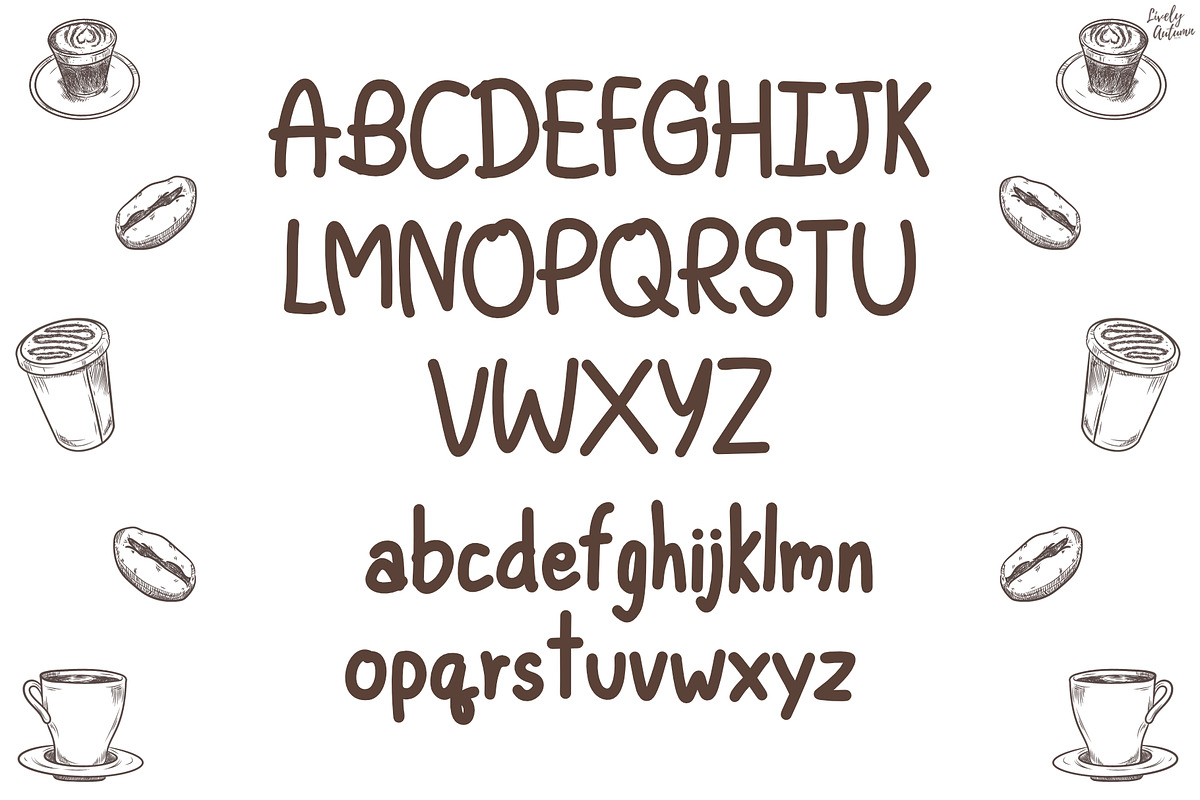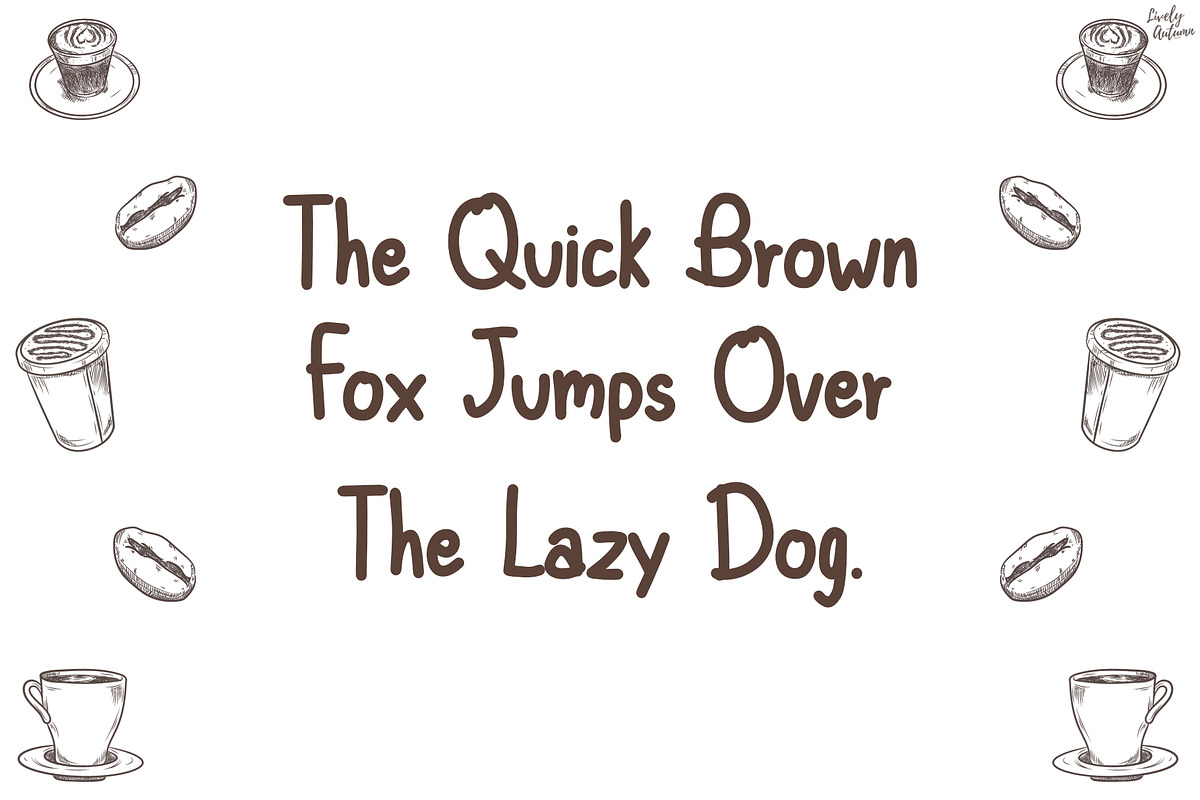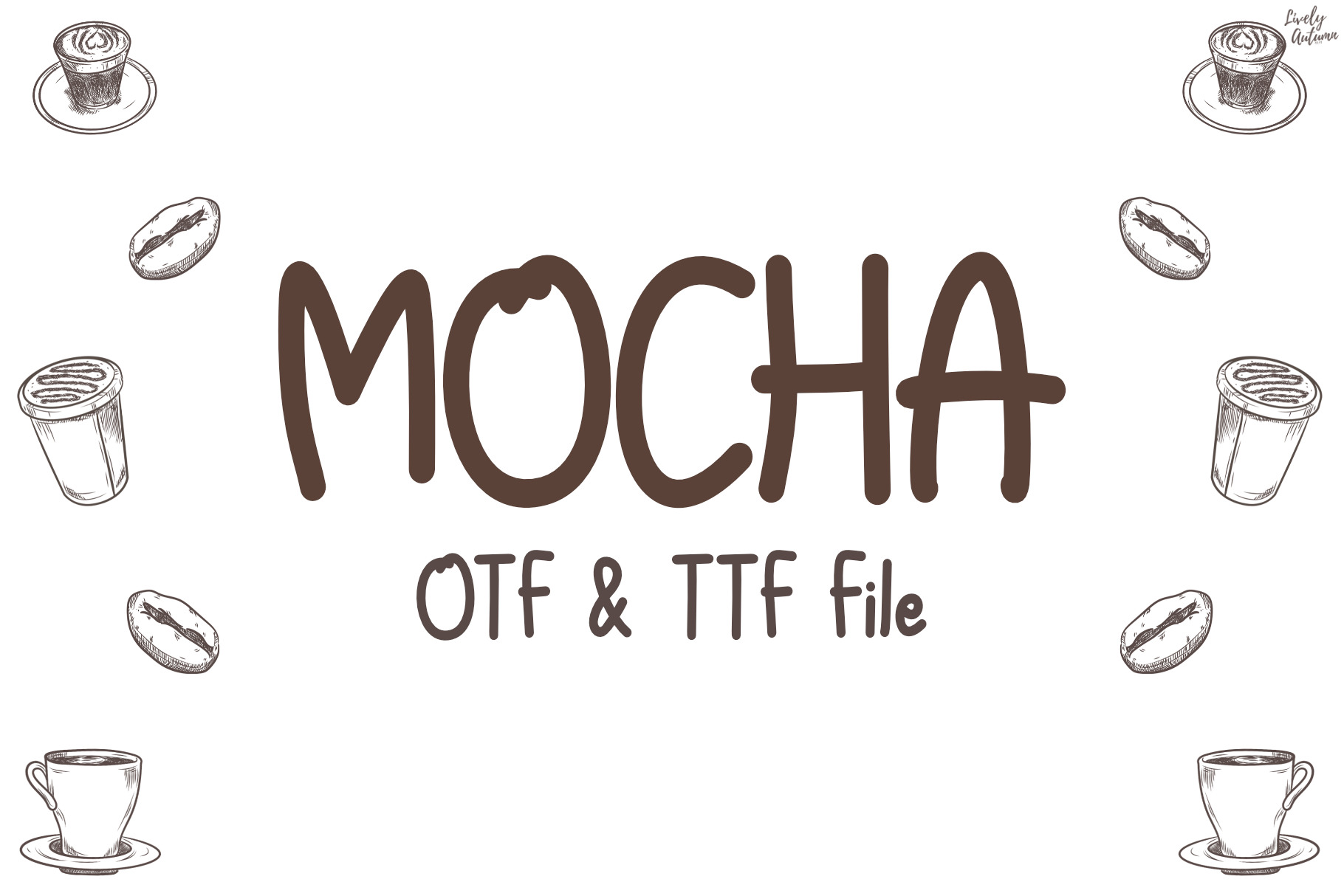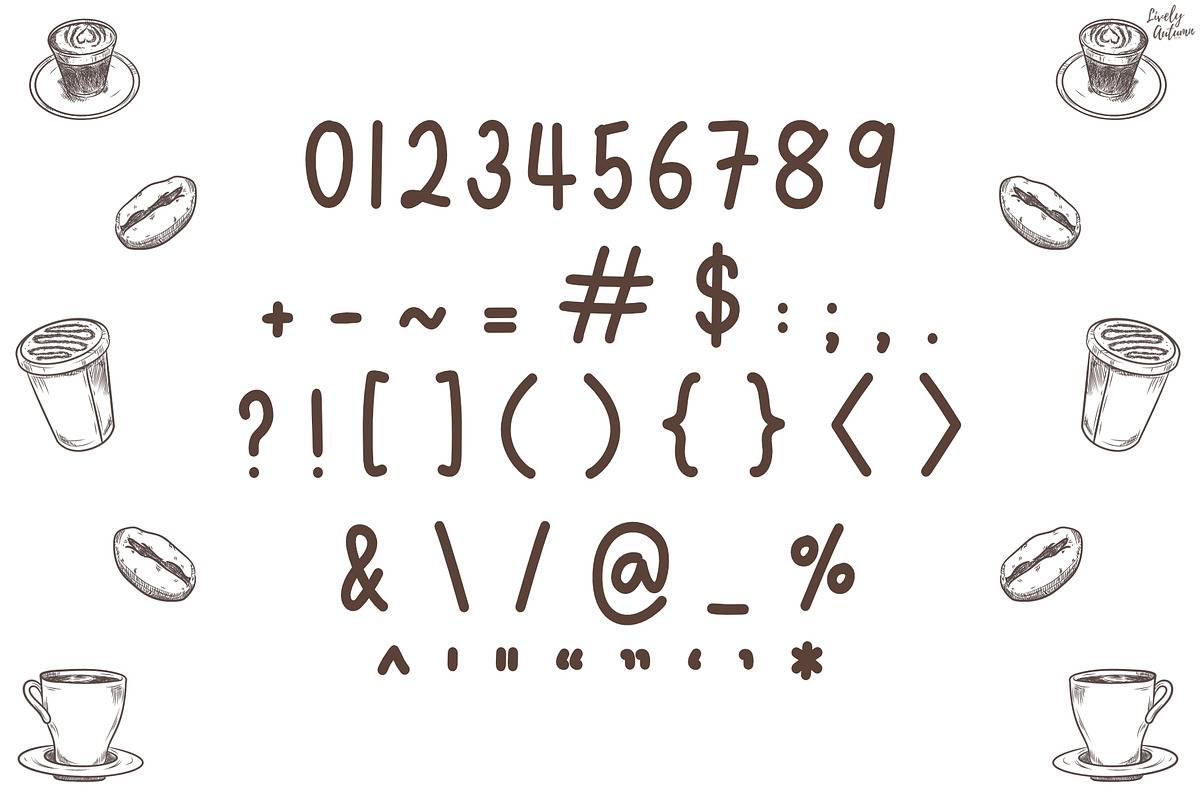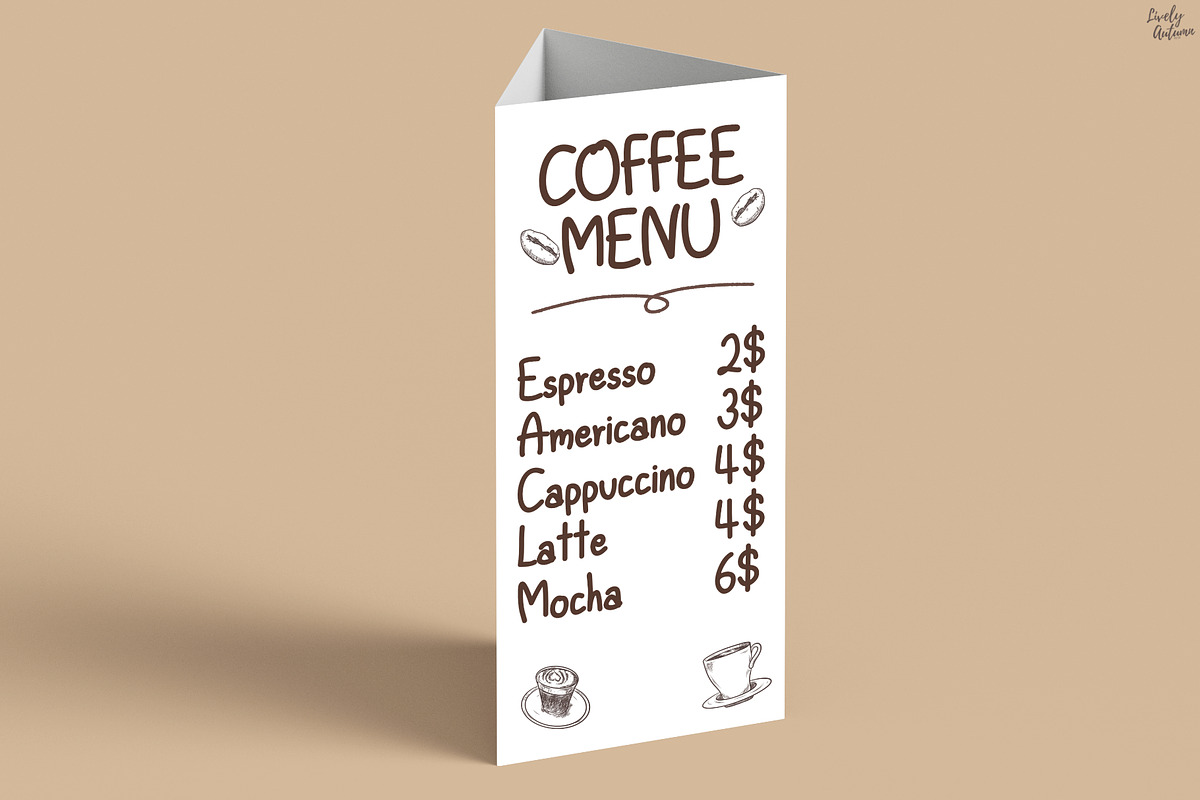
Mocha | Handwriting font
Mocha is a cute, simple handwriting font perfect for your personal projects and various projects. From invitations to posters, social media graphics, journals, greeting cards, and much more.
- Font includes: uppercase, lowercase, numbers, and punctuation.